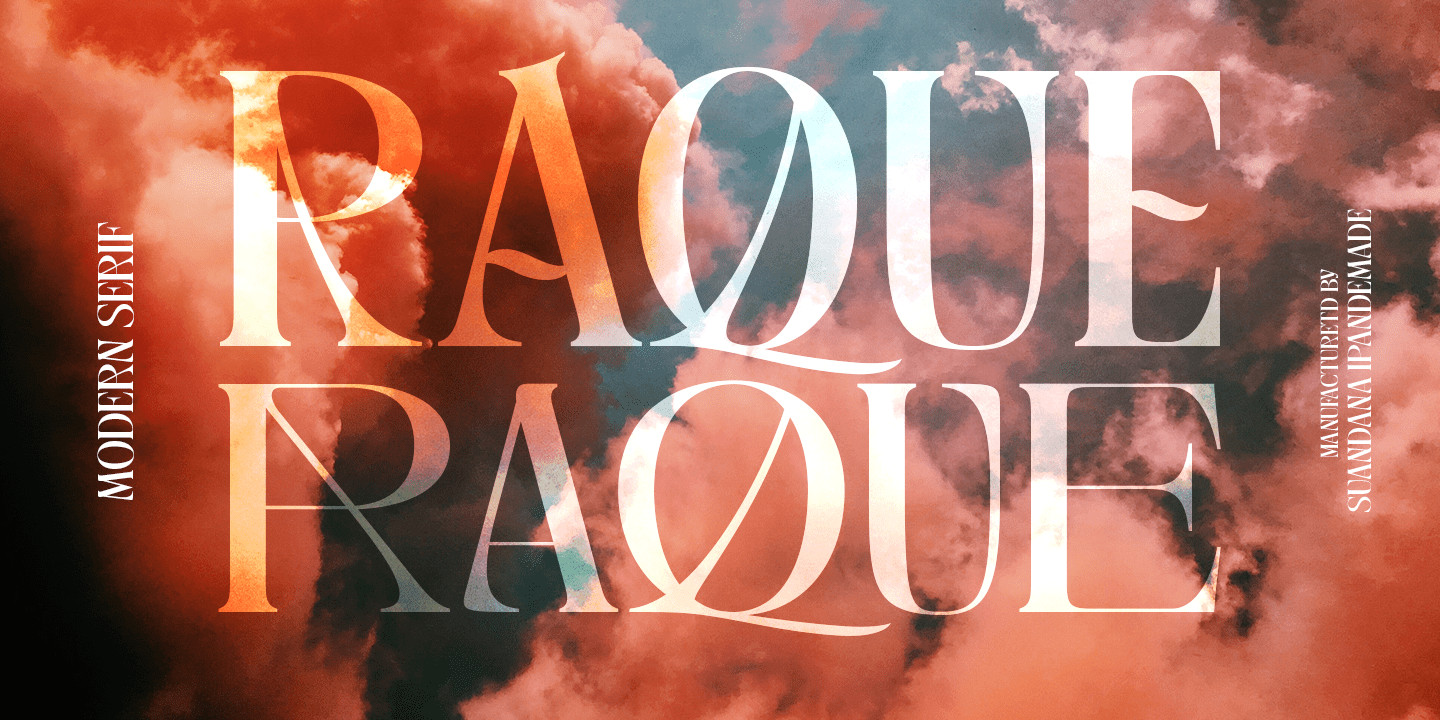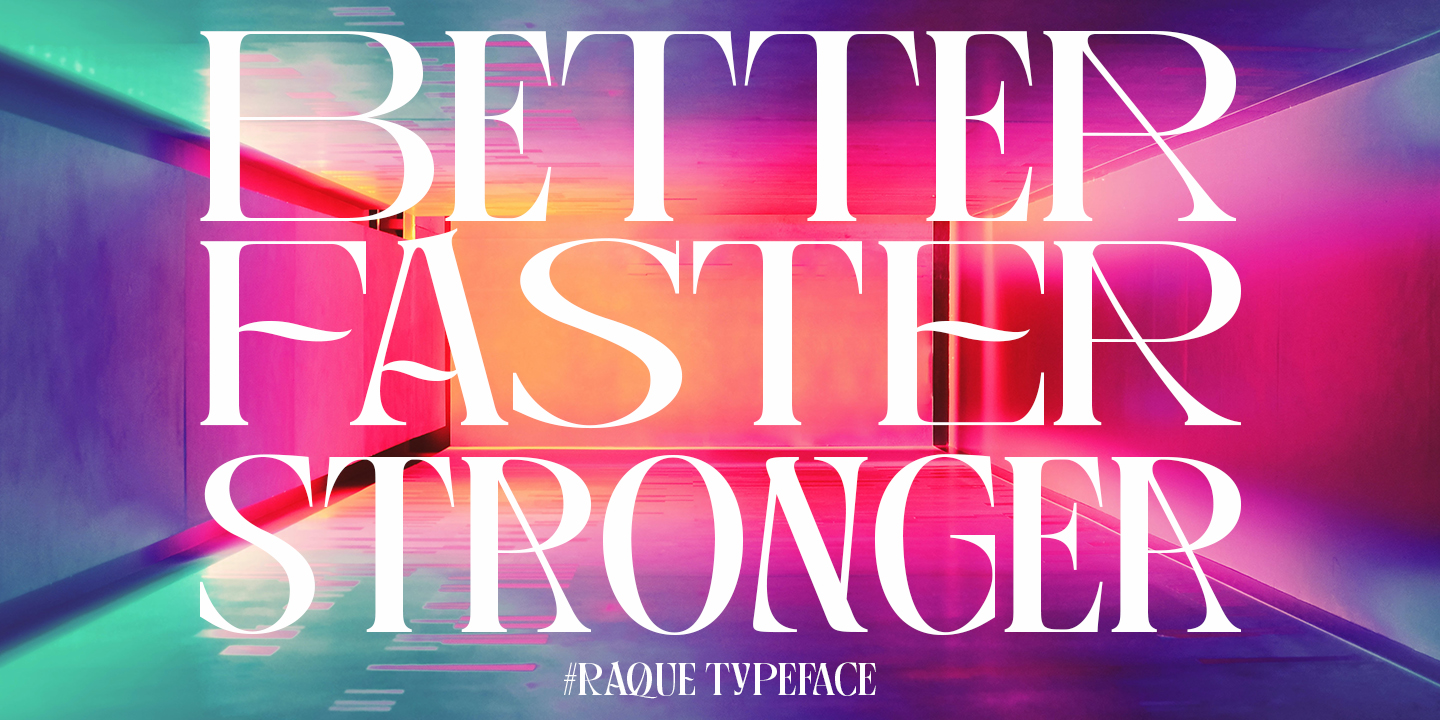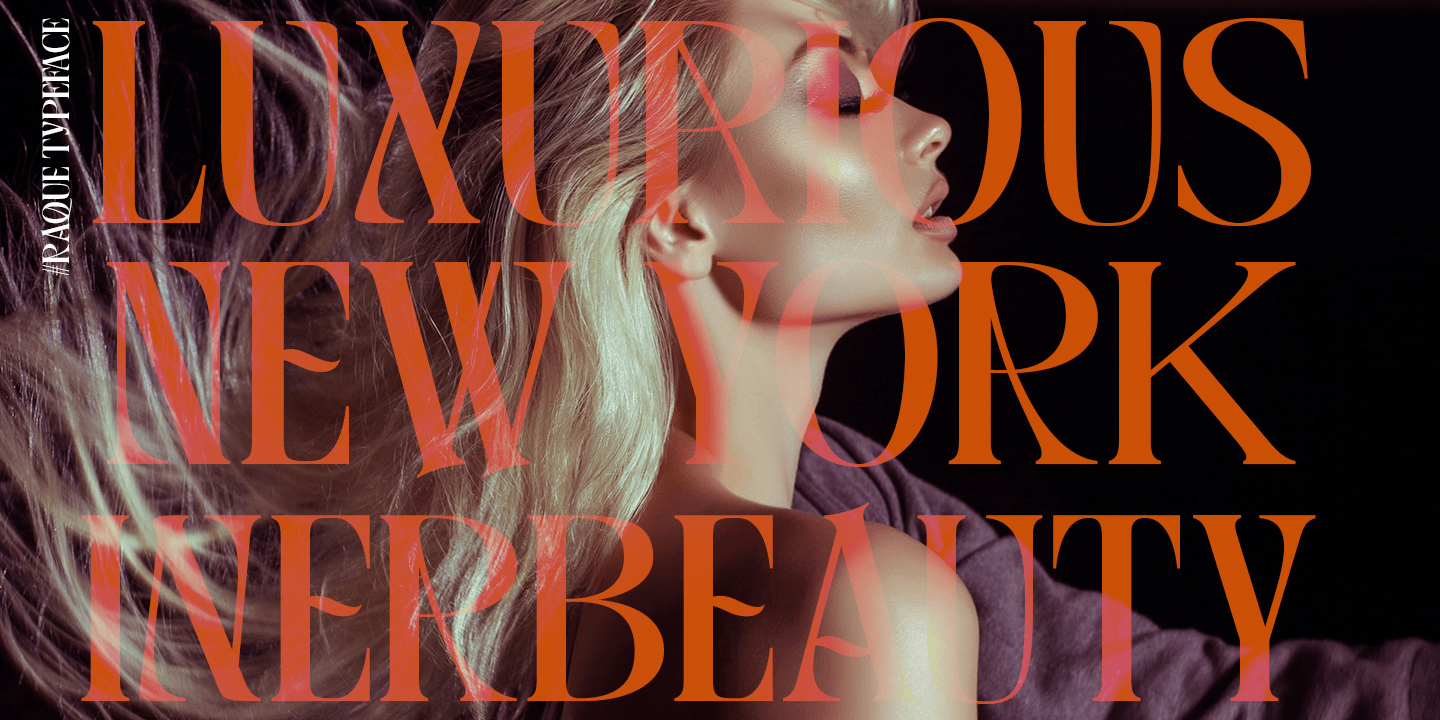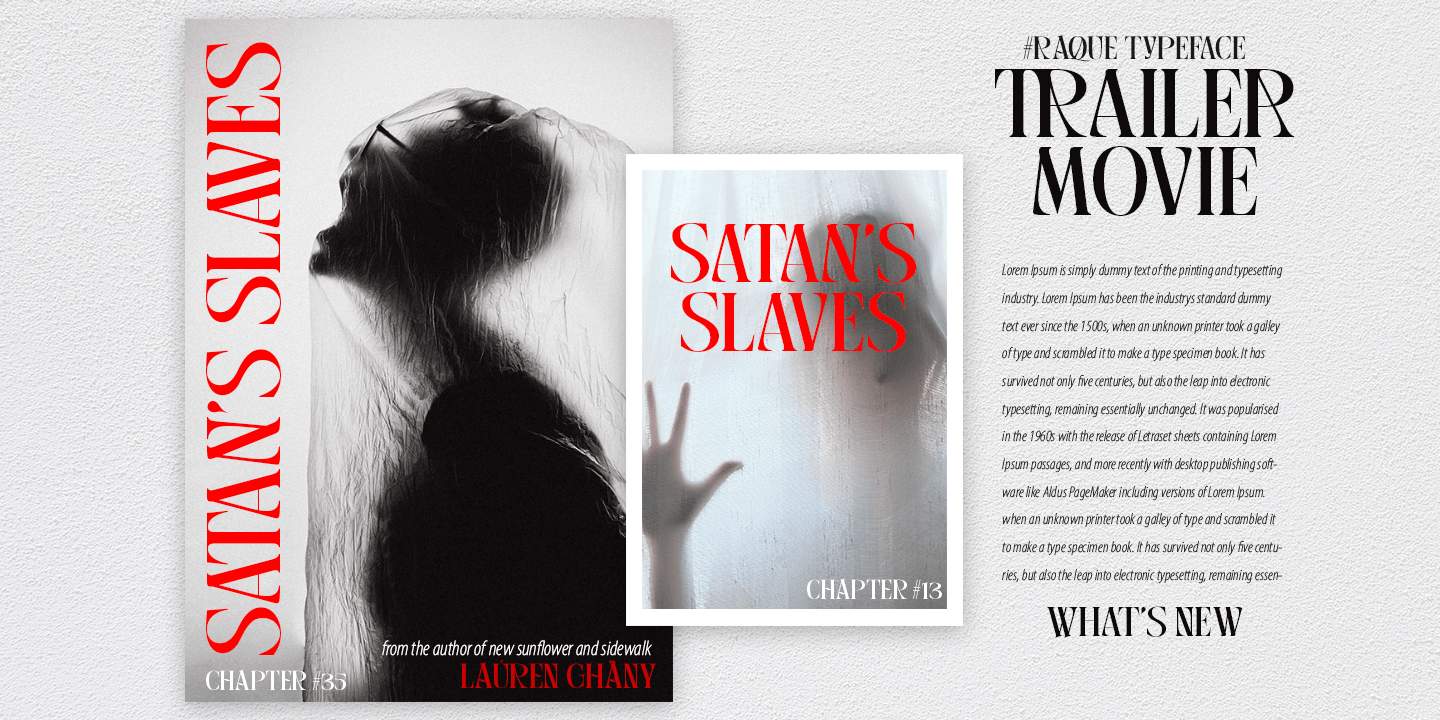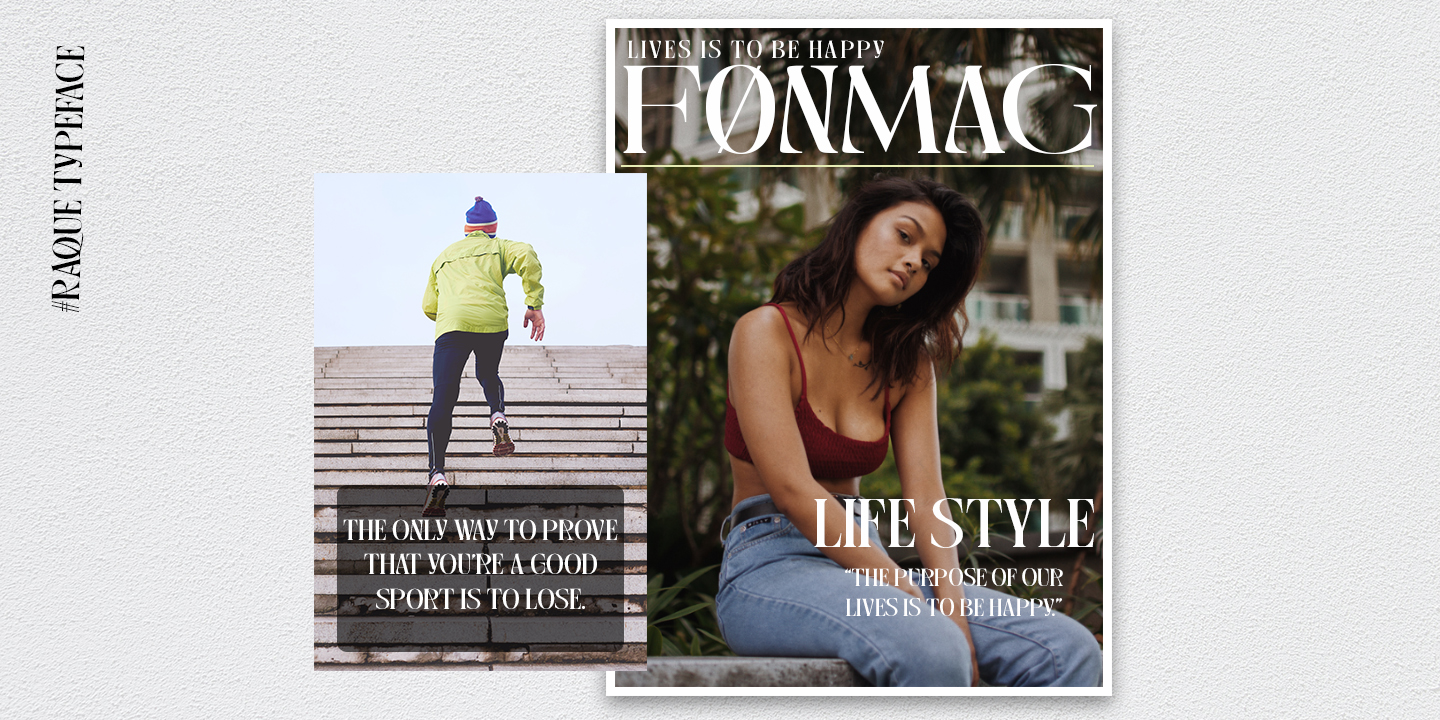
Raque Serif Font
This font is a Capital Modern Serif, use this font for any branding, product packaging, invitation, quotes, t-shirt, label, poster, logo etc.